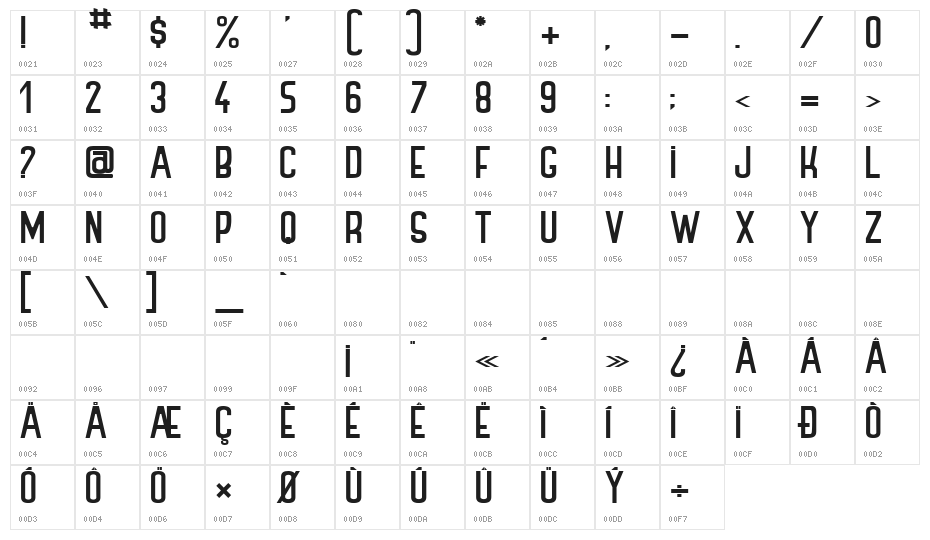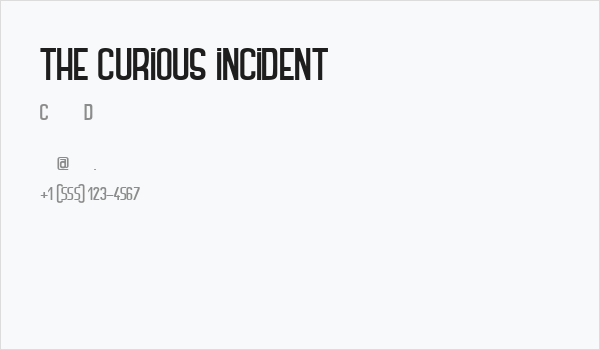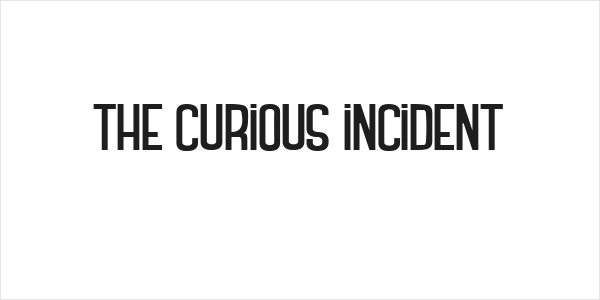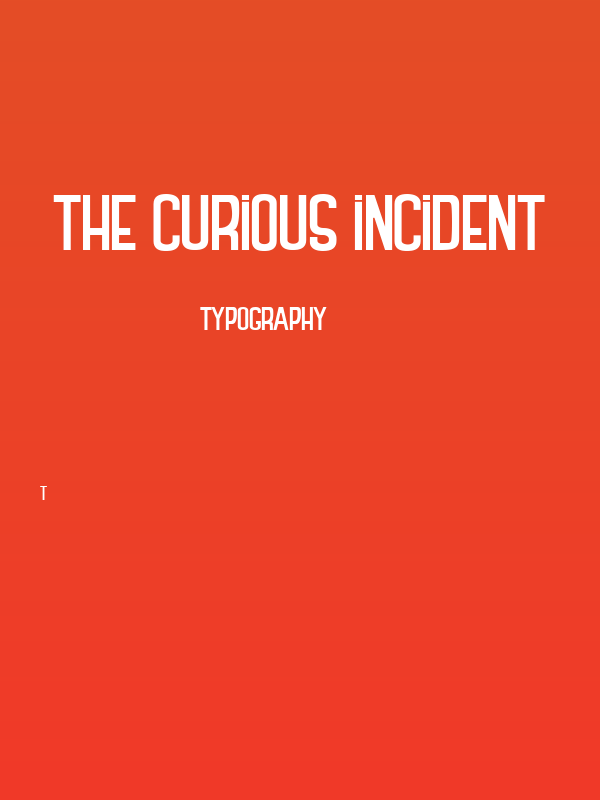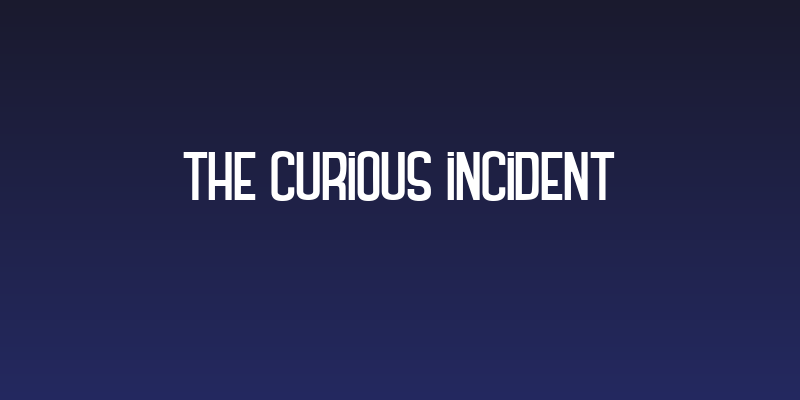
THE CURIOUS INCIDENT Font
THE CURIOUS INCIDENT Description
This font features a bold, geometric sans-serif style with a modern and clean appearance. The characters are uniform in width, contributing to a consistent and structured look. The uppercase letters are tall and narrow, while the lowercase letters maintain a similar height, creating a cohesive visual flow. The numerals are distinct and easily readable, matching the overall boldness of the alphabet. Special characters are designed with the same geometric precision, ensuring they integrate seamlessly with the rest of the font. This typeface is ideal for projects that require a strong, impactful presence.